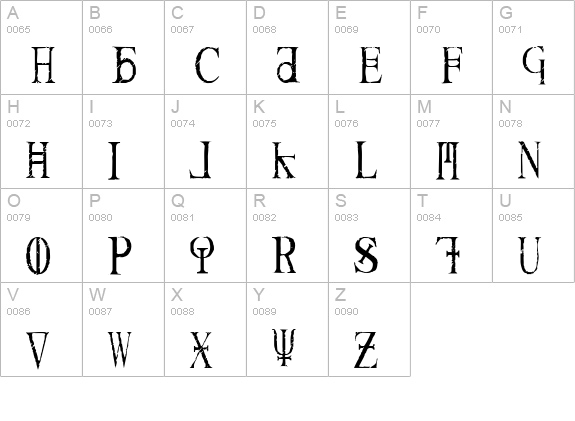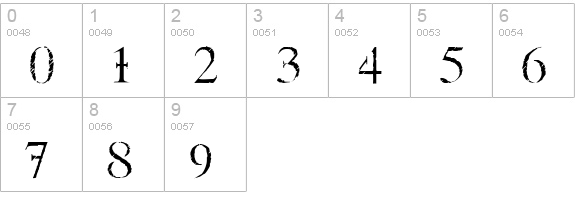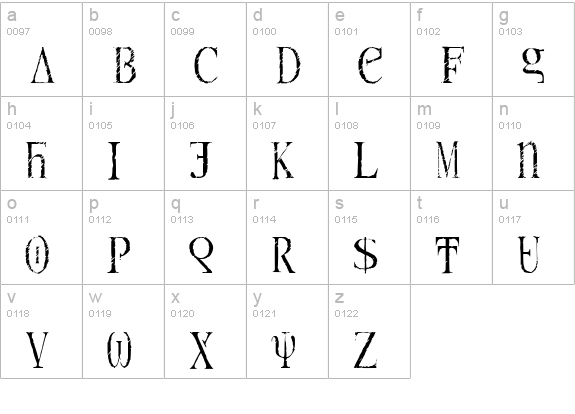
SkreechCapsA Font Details
SkreechCapsA font, an epitome of uniqueness and creativity, is here to revolutionize the world of typography. This exquisite font, with its intricate design and captivating appeal, is bound to leave a lasting impression on any project it graces. SkreechCapsA font is a meticulously crafted display font that effortlessly combines elegance with a hint of playfulness. Its bold and distinct letterforms, characterized by sharp edges and intricate details, make it perfect for eye-catching headlines, logos, and branding materials. With its versatile nature, SkreechCapsA font is equally at home in both modern and retro-inspired designs. One of the most remarkable aspects of SkreechCapsA font is its availability for free download. Yes, you read that right! This incredible font is freely accessible at FontsMarket.com, allowing designers and enthusiasts to explore its endless possibilities without any financial constraints. It is a testament to the generosity of the font's creator, who believes in providing exceptional typography to everyone. SkreechCapsA font's wide range of uppercase characters, numerals, and punctuation marks offer a myriad of design options. Whether you're designing a poster, advertisement, or website, this font's versatility ensures that your message is conveyed with impact and style. The attention to detail in SkreechCapsA font is evident in every stroke, curve, and contour. Its unique and eye-catching aesthetic sets it apart from the crowd, making it a perfect choice for projects that demand a touch of individuality. The font's intricate design elements, combined with its bold and dynamic presence, create an unforgettable visual experience for the viewer. SkreechCapsA font's legibility is second to none, ensuring that your message is delivered with clarity and impact. Its carefully balanced proportions and well-defined letterforms guarantee readability, even at smaller sizes. So, if you're searching for a font that effortlessly combines elegance, creativity, and boldness, look no further than SkreechCapsA font. Let your designs soar to new heights with this remarkable typeface, freely available for download at FontsMarket.com. Embrace the freedom and unleash your creativity with SkreechCapsA font.